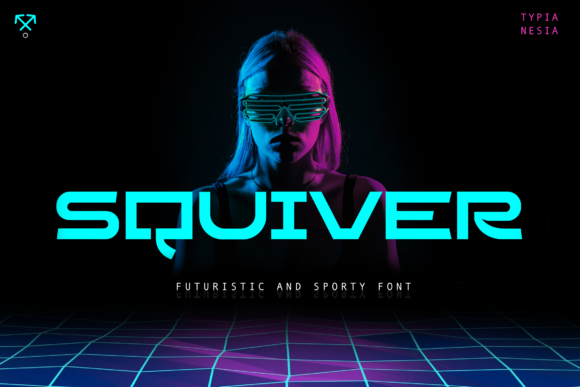
Dive into the world of Squiver, a futuristic sans serif font that embodies innovation and creativity. Its sleek lines and modern aesthetic will elevate your website designs to new heights, leaving a lasting impression on your audience. With Squiver, you're not just downloading a font; you're unlocking a limitless universe of possibilities.
Imagination knows no bounds with Squiver. Its unique character set empowers you to craft captivating headlines, engaging body copy, and eye-catching graphics that resonate with your brand's identity. Whether you're a seasoned designer or just starting your creative journey, Squiver is the perfect companion to unleash your vision.
But Squiver is more than just a typeface; it's an experience. Its meticulously crafted curves and angles evoke a sense of dynamism and fluidity, adding a touch of sophistication to any project. Imagine your website visitors captivated by the subtle nuances and clean lines of Squiver, their attention drawn to every detail.
Join the league of creative minds who have embraced Squiver, a font that transcends the ordinary. Its versatility knows no limits, seamlessly adapting to a myriad of design styles, from minimalist to bold and experimental. Whether you're crafting a sleek landing page, a vibrant marketing campaign, or a captivating online portfolio, Squiver is the font that will make your creations shine.